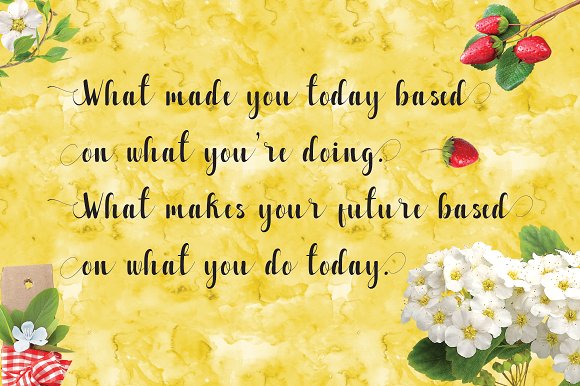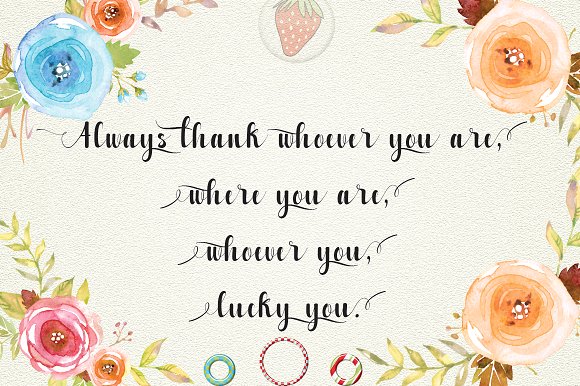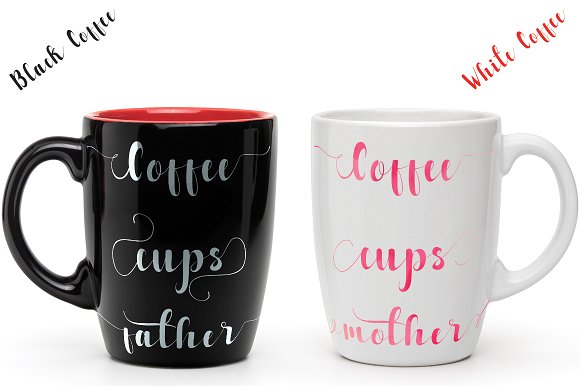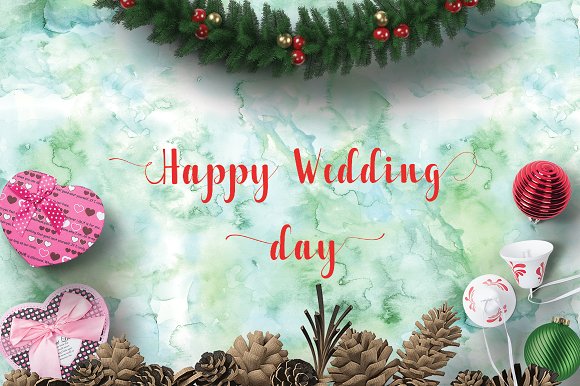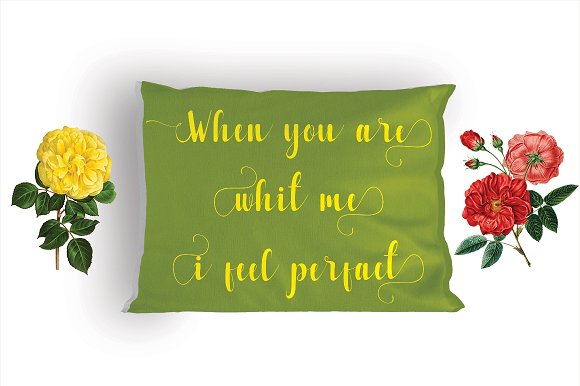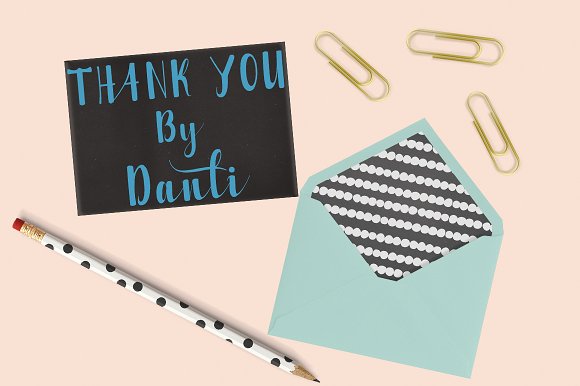
Alzelvin Font
About Alzelvin Font
Alzelvin is a handwritten calligraphy-style font created by Danti.
The Alzelvin font has a very natural fluid style and features:
Standard Ligatures
Stylistic Alternates
Stylistic Sets
Swashes